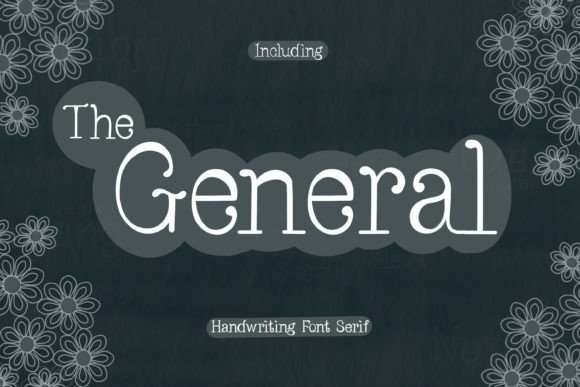
Welcome to the realm of The General Font, a serif masterpiece crafted by the artisans at N Nakorn Creative, where classic elegance meets modern charm.
Step into a world of timeless beauty, where The General Font reigns supreme, a font designed to elevate your creative projects to new heights of sophistication and allure.
With its graceful curves, delicate serifs, and unwavering presence, The General Font lends an air of distinction to every design it graces. Whether you're crafting elegant logos, heartwarming wedding invitations, or eye-catching social media posts, this font is your trusted companion, transforming your words into works of art.
Unleash your creativity and let The General Font guide you on a journey of visual storytelling. Picture your designs adorned with this font's timeless beauty, captivating your audience with its effortless charm.
From the chic simplicity of place cards to the rustic allure of farmhouse signs, The General Font adapts seamlessly to any aesthetic, adding a touch of sophistication and warmth to every project.
And oh, the versatility! With The General Font at your disposal, the possibilities are endless. Create stunning mugs and shirts that speak volumes, design pantry labels that bring order to your kitchen, or craft business cards that leave a lasting impression.
But it doesn't stop there. The General Font elevates greeting cards, posters, and planner prints, transforming them into cherished keepsakes that tell a story.
Its digital prowess extends to websites and social media platforms, where The General Font commands attention, captivating audiences with its timeless allure.
With its versatility and timeless appeal, The General Font is an investment in your creative arsenal, a font that will serve as your faithful companion for years to come. Add it to your collection today and embark on a creative journey like no other.